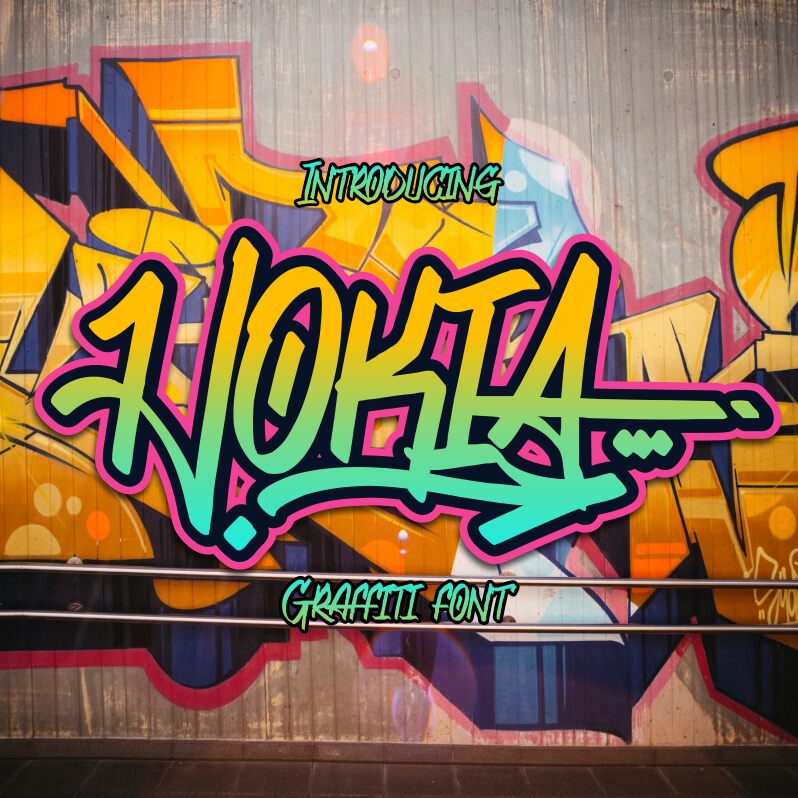
Hokia
Hokia, the newest creation from Allouse Studio, is a graffiti-inspired font with a semi-light weight. This unique typeface is perfect for adding an edgy and urban aesthetic to any project. Whether you're designing album covers, streetwear logos, or event flyers, Hokia will make your text pop. Its bold strokes and playful curves lend themselves to a variety of styles and projects - from music festivals to skateboarding brands. Get creative with Hokia and elevate your designs to the next level.